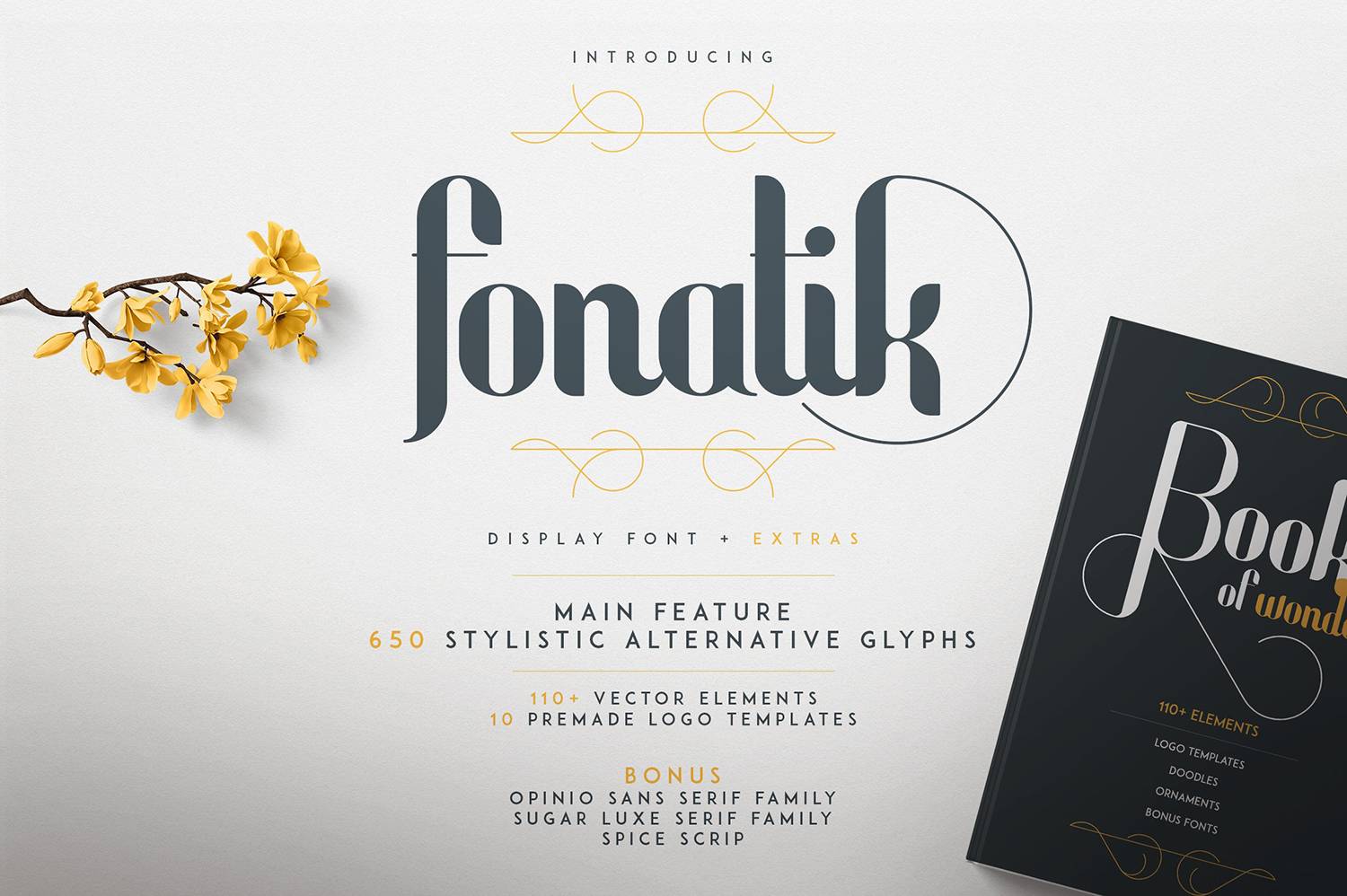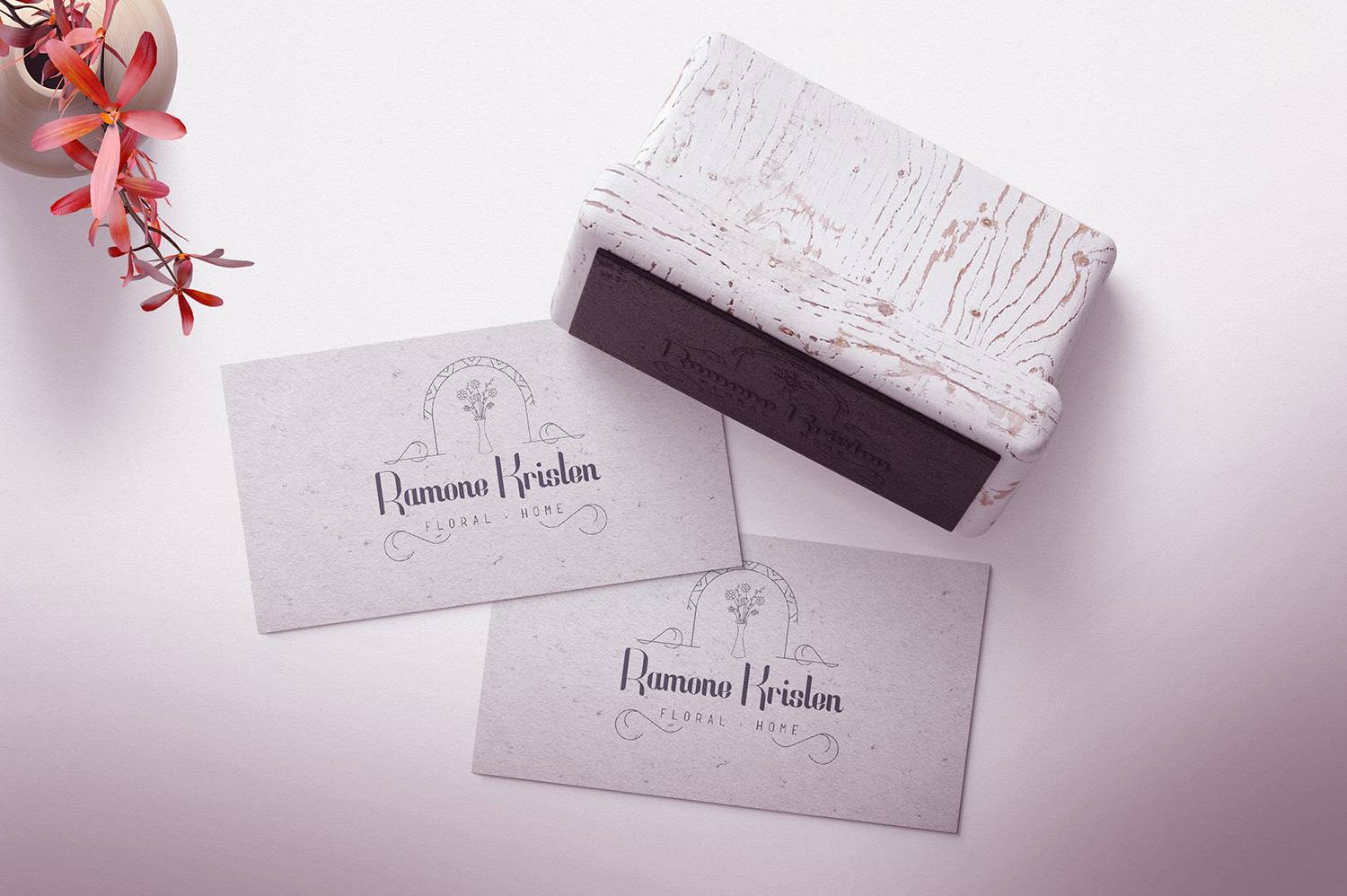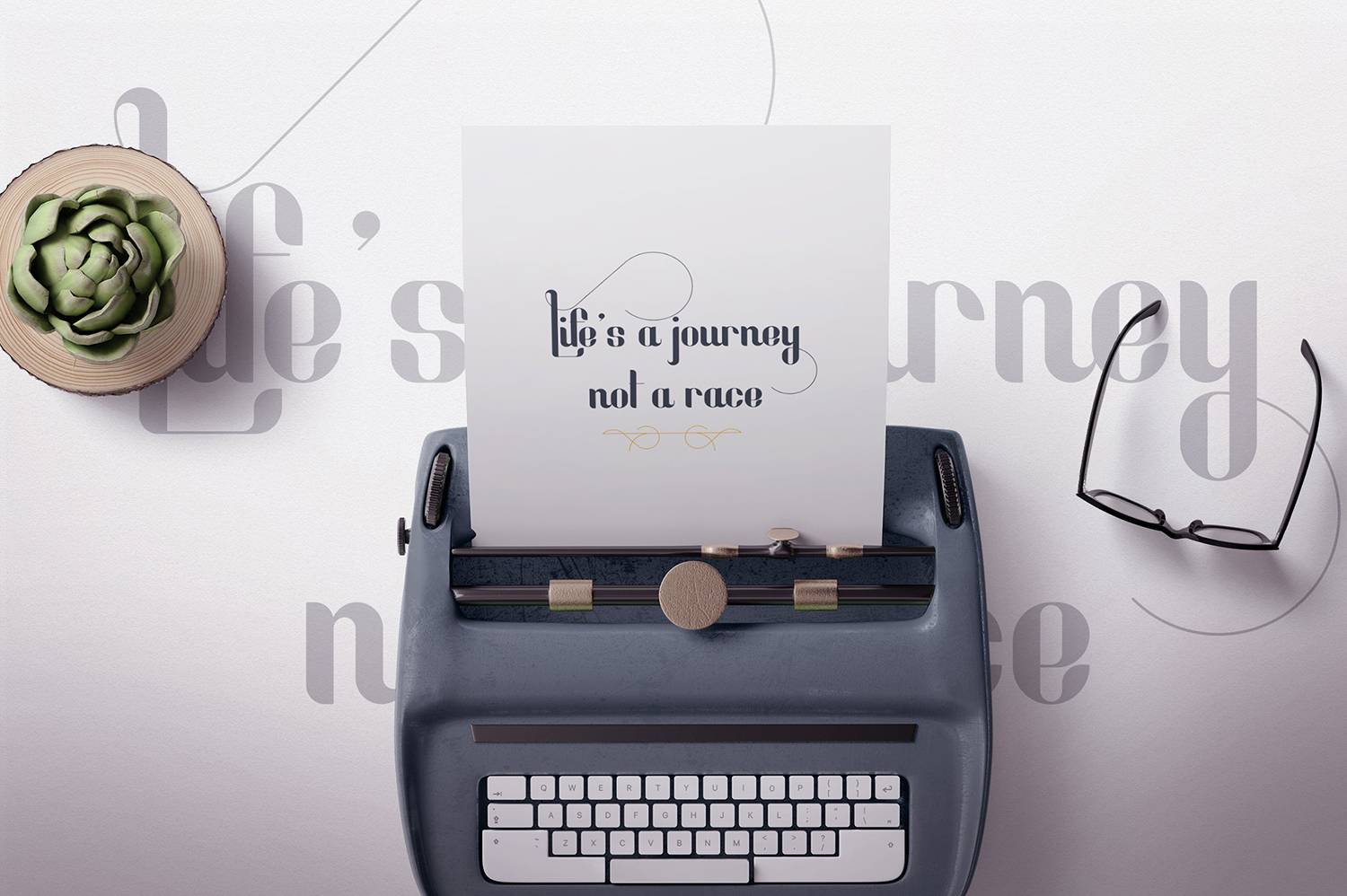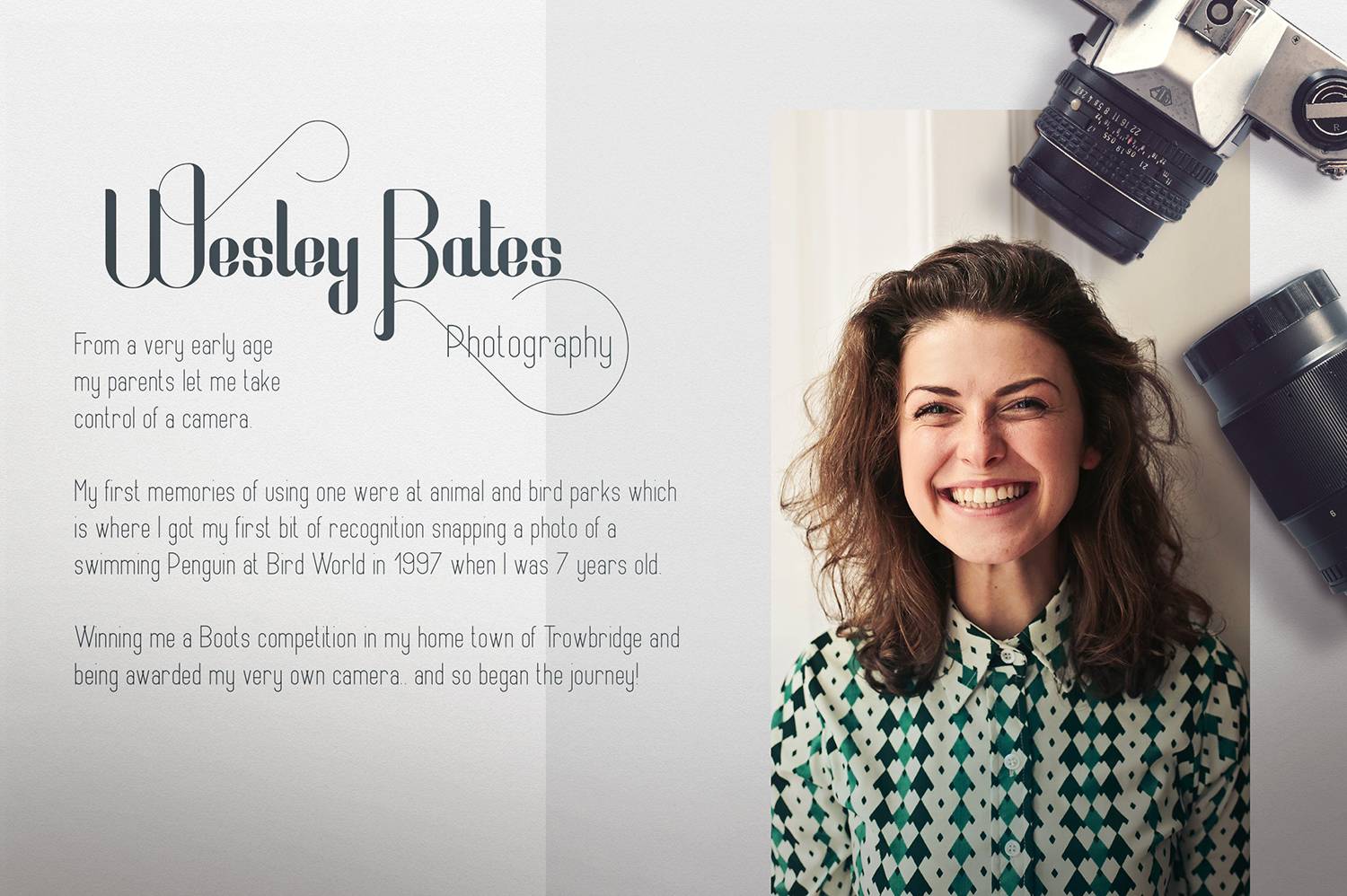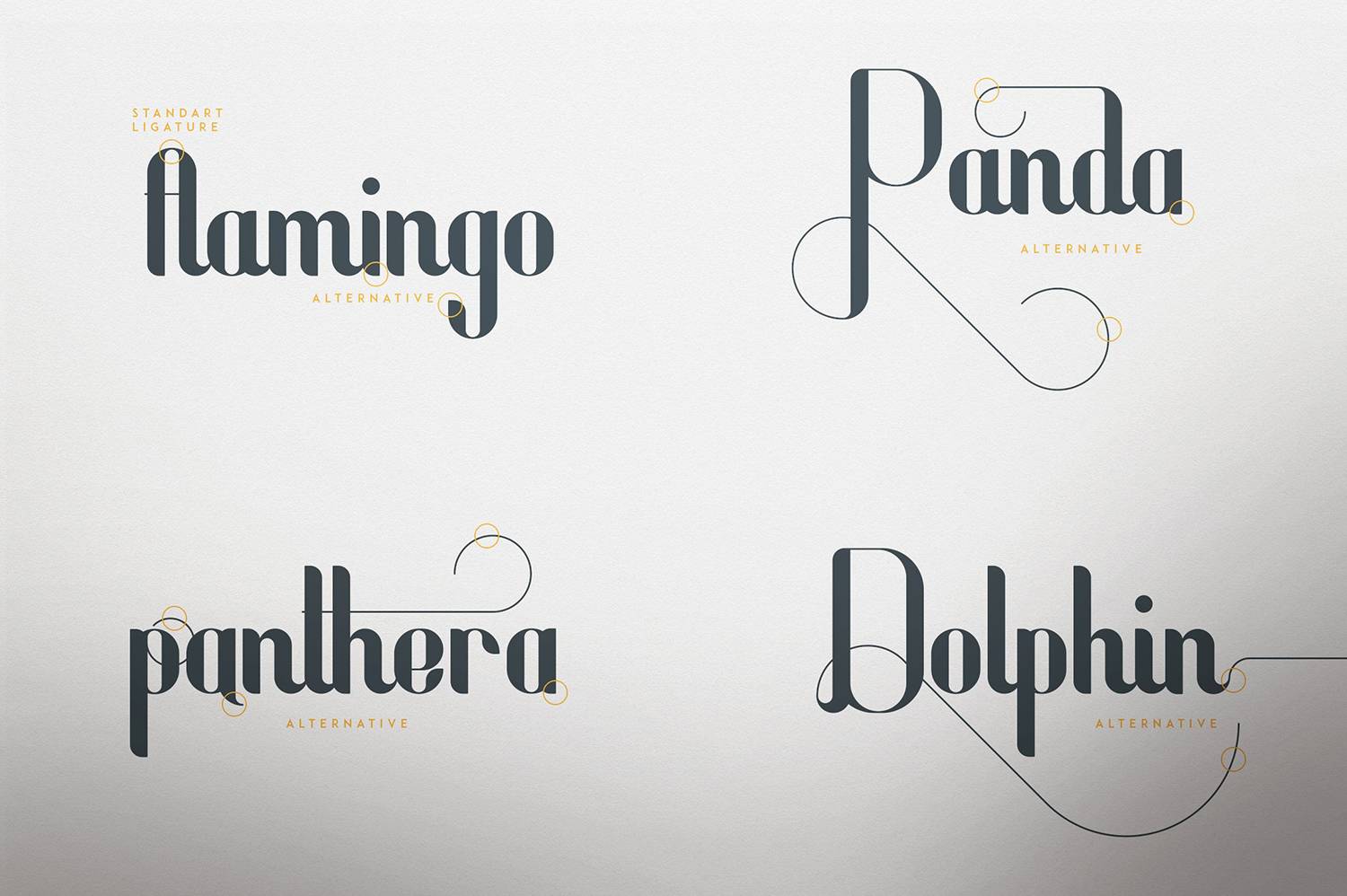
Fonatik is a stylish, condensed serif font with a distinct Art Deco influence, featuring tall, narrow letterforms and high contrast between thick and thin strokes. Its elegant, decorative design with unique detail elements suits luxury branding, fashion, and editorial headlines, adding a sophisticated, vintage-modern flair to any project.
Fonatik Font
About Fonatik Font